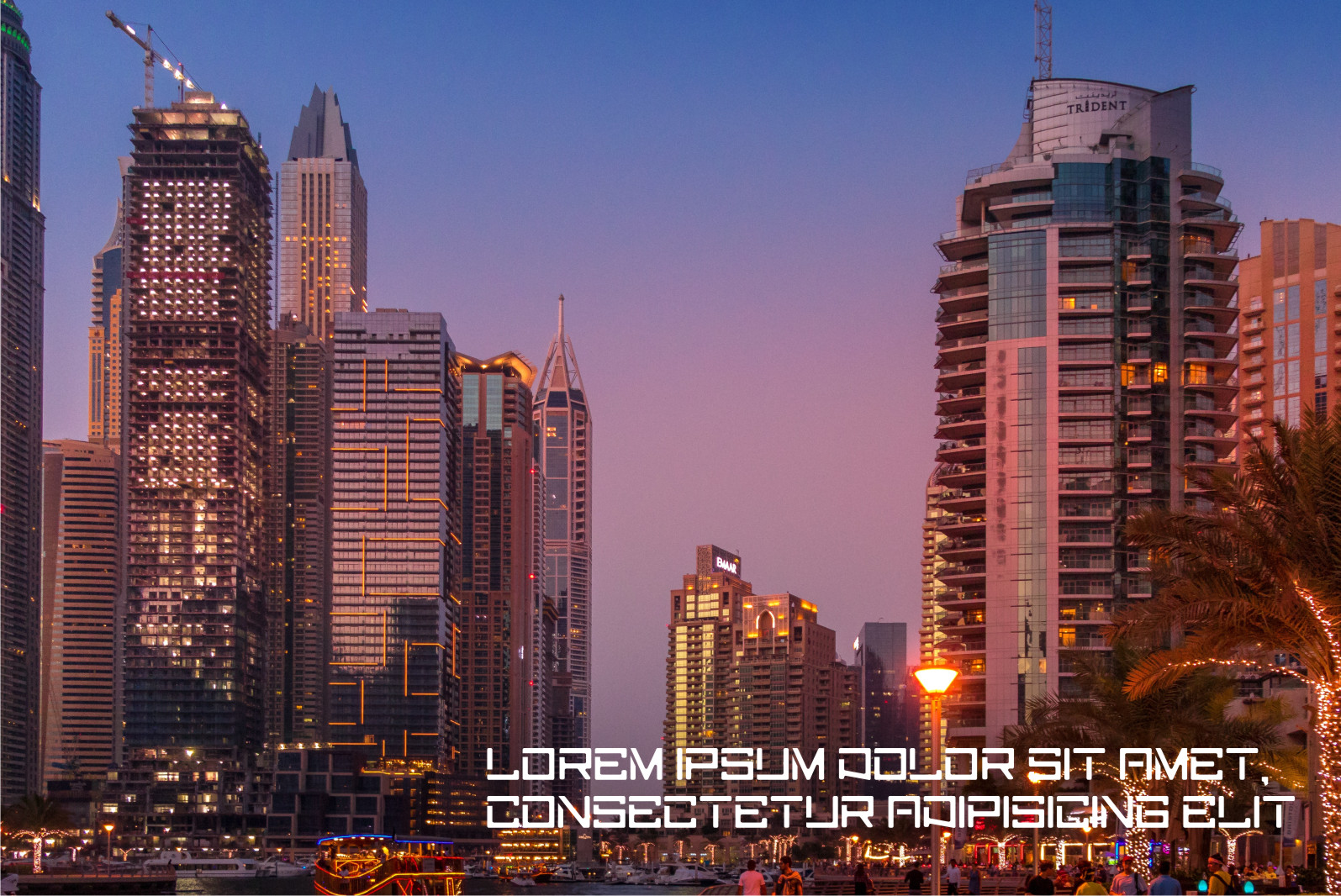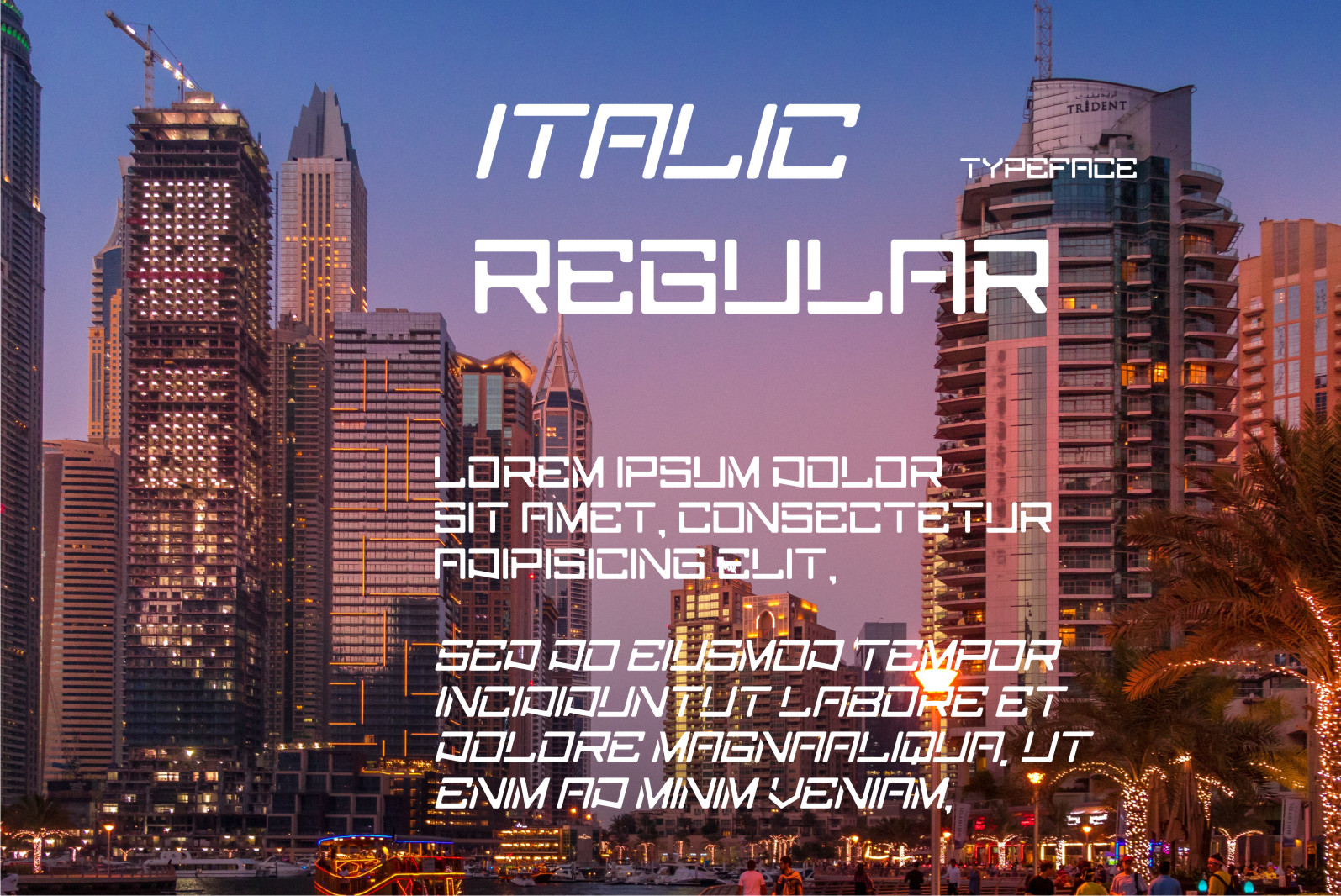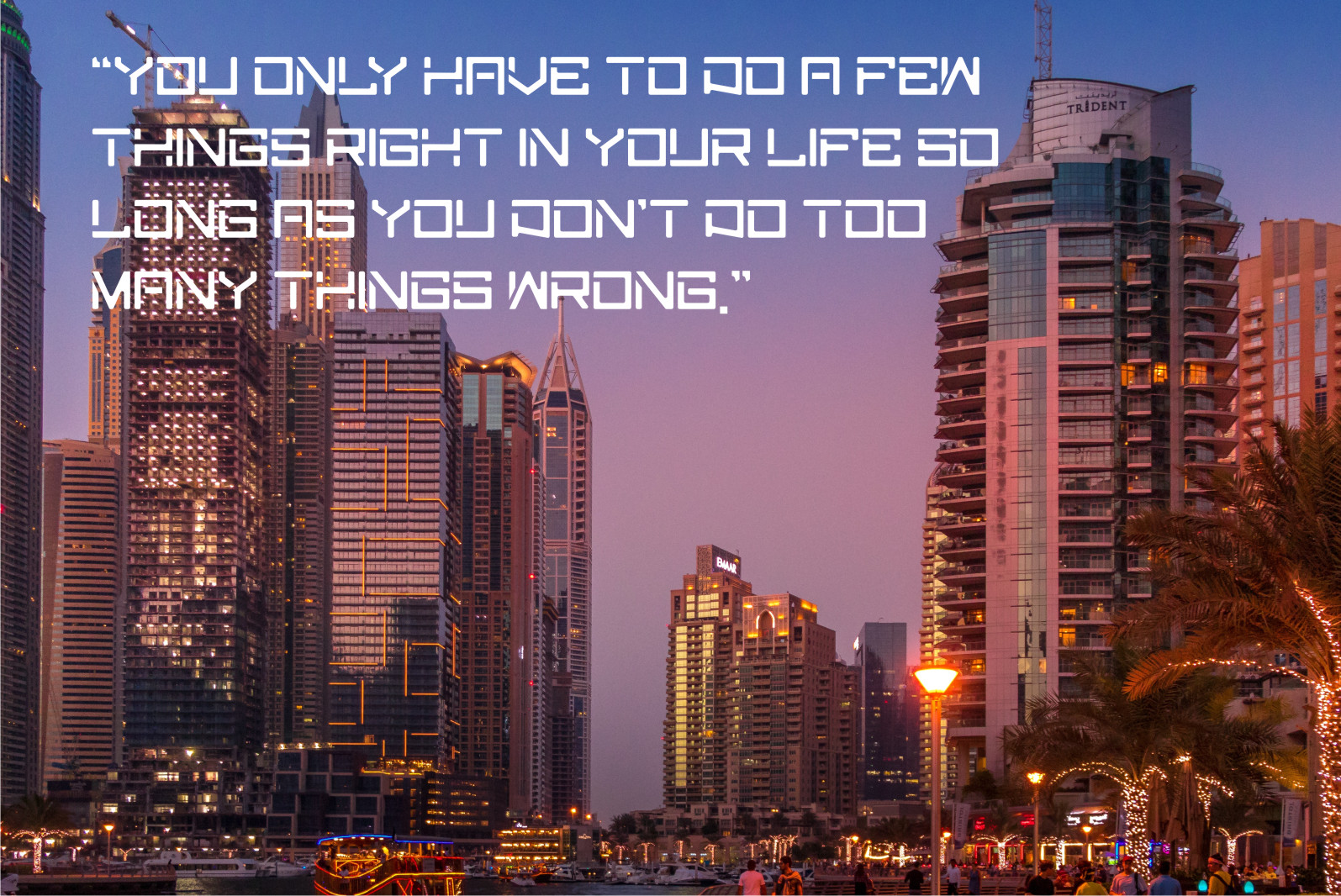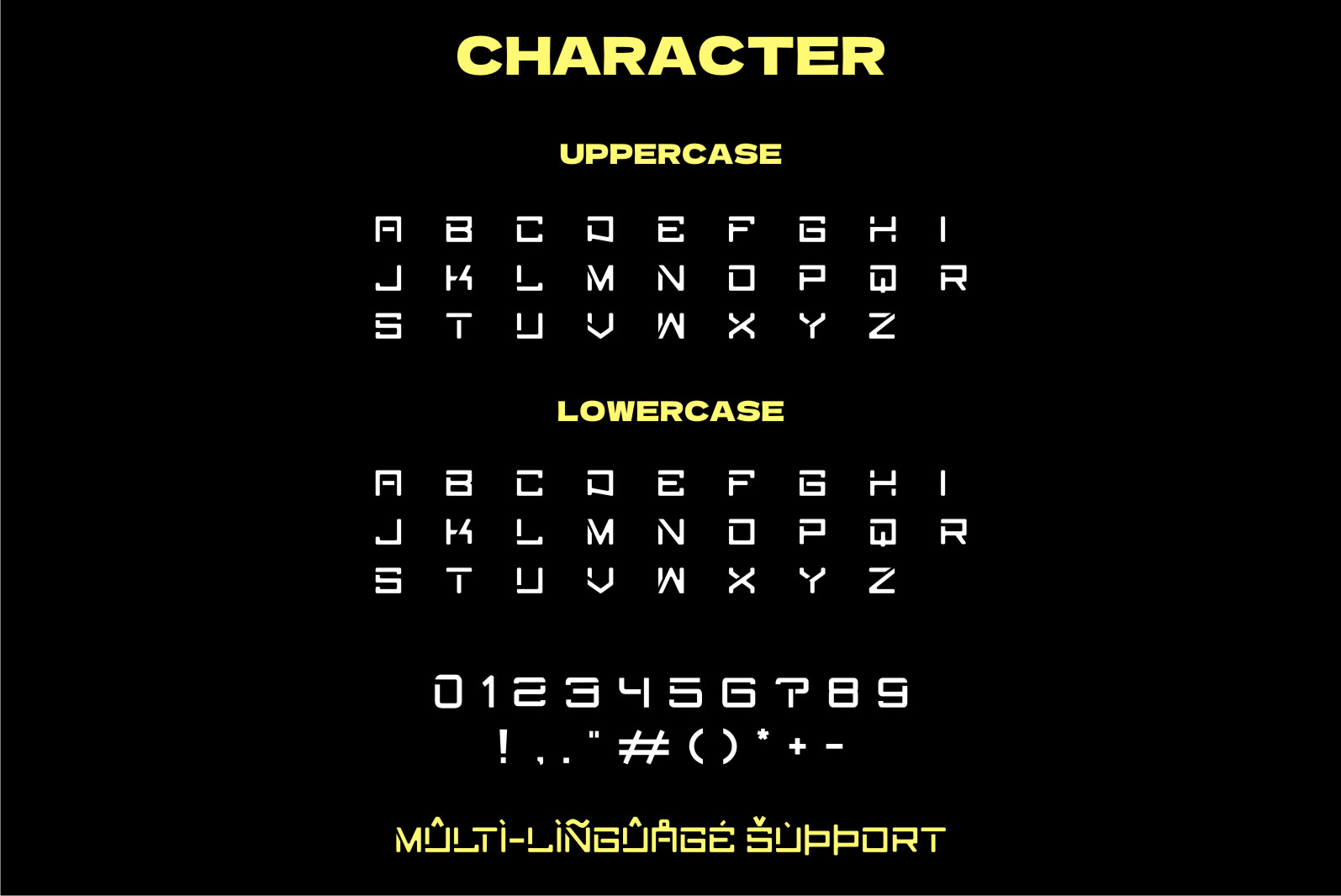
Reamer Display Font
This is a cool and robotic-styled display font. This font is ideal for writing web designs, business cards, or pretty much anything else that requires a futuristic touch.